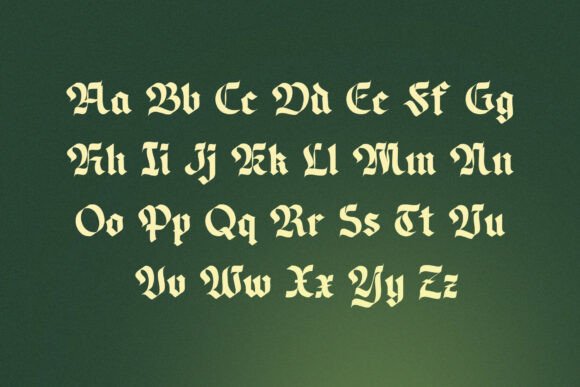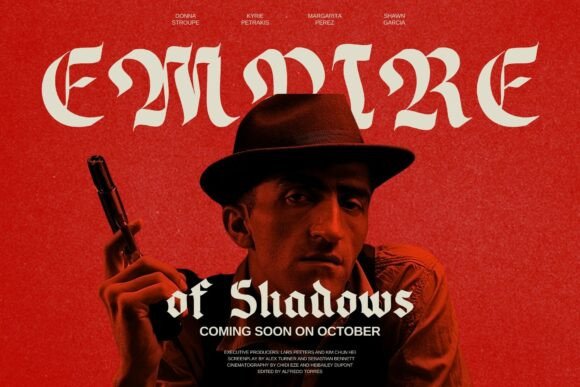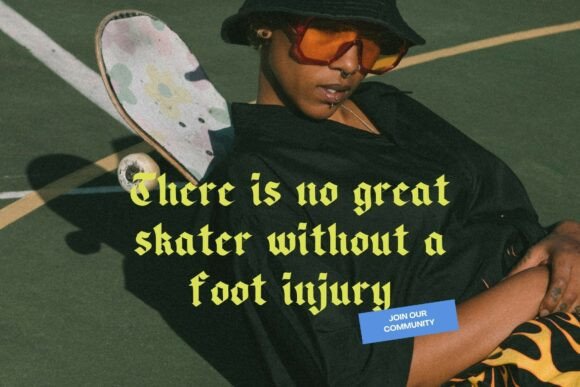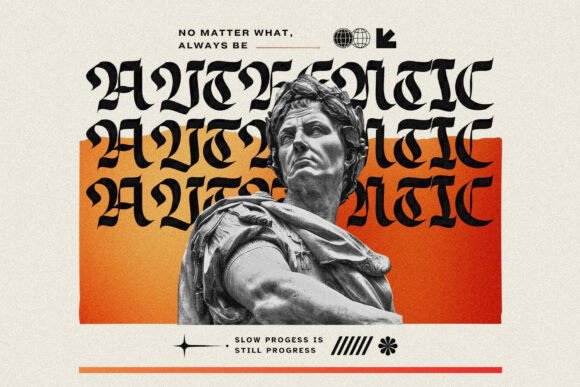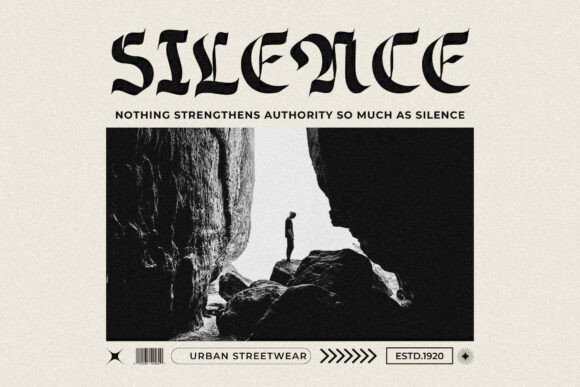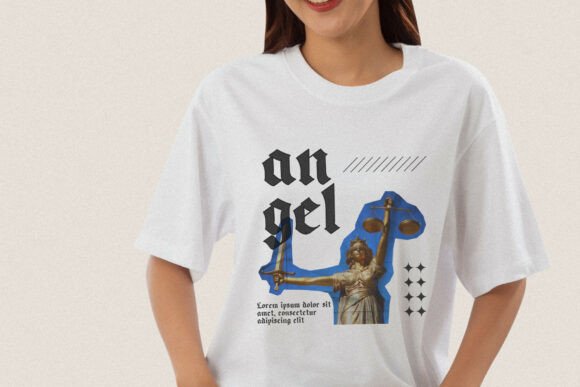
Introduction to Magnefico Font
Have you ever been stuck on a design project, struggling to find the perfect font to convey the message and atmosphere you envision? As a designer, you know how crucial it is to select a font that complements your creative project and speaks to your audience. That’s where the Magnefico Font comes in – a bold and powerful blackletter typeface that’s sure to elevate your designs and leave a lasting impression.
With its classic elegance and gothic strength, the Magnefico Font is the perfect addition to any design resource. Whether you’re working on a high-quality logo, poster, or branding material, this font is sure to bring a touch of sophistication and drama to your work. Plus, with a transparent background and free download available, you can experiment with the Magnefico Font in your next creative project without any hassle.
Key Features of Magnefico Font
- High-quality design resource ideal for creative projects, offering a unique and stylish touch.
- Features a clean and modern design, making it perfect for use in digital and print-based creative projects.
- High-resolution design, suitable for use in large-scale designs, such as billboards or posters.
- Supports various font sizes and styles, allowing for flexibility and customization in design applications.
Honest Review: Magnefico Font
I recently stumbled upon the Magnefico Font, a design resource that caught my eye. As a designer, I’m always on the lookout for high-quality fonts that can elevate my creative projects. The Magnefico Font did not disappoint.
What works well: ✨ The font is clean and modern, making it perfect for a variety of design projects. The transparent background allows for seamless integration with other design elements. The font is also highly customizable, making it a great choice for designers who want to add a unique touch to their work.
- Customizable and clean design
How to Use Magnefico Font
Magnefico Font is a high-quality, elegant font that is perfect for any creative project. It is available for free download and can be easily integrated into various design applications.
Tips for Getting the Most Out of Magnefico Font
To get the most out of Magnefico Font, use it with a transparent background to create stunning designs. You can also experiment with different font sizes and styles to add depth and interest to your designs.
Magnefico Font is perfect for use in logos, branding materials, and other creative projects where a high-quality, elegant font is required. It is also great for use in presentations, documents, and other written materials where a professional-looking font is needed.